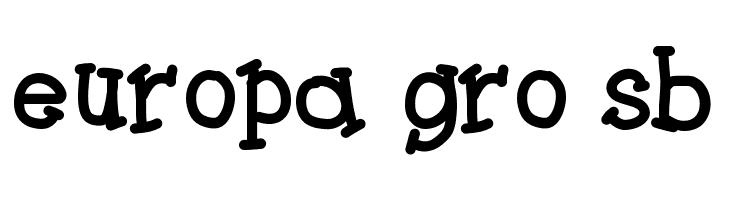
A bold, playful font with thick, rounded strokes and a whimsical style.
A bold, geometric font with a digital, futuristic style.
A playful, bold font with rounded, hand-drawn letterforms and exaggerated serifs.
Elegant handwritten script font.
A bold, textured font with a rugged, graffiti-like appearance.
A playful, flowing script font with elegant curves and a casual handwritten feel.
A bold, playful font with exaggerated curves and sharp angles.
A bold, geometric font with an industrial and modern aesthetic.
A bold, outlined font with a modern and industrial aesthetic.
A bold, decorative font with intricate Gothic-inspired details.
A Braille-inspired geometric dot grid font.
A modern font combining Braille patterns with Latin characters for a tactile and visual experience.
A modern, geometric font inspired by Braille, featuring dots and lines for a unique look.
A tactile Braille system with raised dot patterns for accessibility.
A pixelated Braille-inspired font with a minimalist and digital aesthetic.
A bold representation of Braille, a tactile writing system for the visually impaired.
A bold, hollow circle-based font inspired by Braille, combining functionality with artistic design.
A hollow, regular Braille font for visual representation.
A Braille font representing characters with raised dot patterns for tactile reading.
A visually styled Braille font with enclosed characters for educational and design purposes.
A decorative font inspired by Braille, featuring bold dot patterns.
A visually styled Braille font with rounded rectangles and consistent dot patterns.
A visually striking font that combines Braille dots with a bold, modern design.
A modern, Braille-inspired font with a playful and innovative design.
A modern, bold font inspired by the Braille system, featuring distinct dot patterns within rectangular shapes.
A visually Braille-inspired font with rounded shapes and dot patterns.
A bold, Braille-inspired font with high contrast and unique dot patterns.
A bold, playful font with a hand-drawn, melted appearance.
A tall, narrow, and modern font with sharp edges and geometric shapes.
A playful, bold, hand-drawn font with a whimsical style.
A playful, brain-inspired decorative font with bold, rounded characters.